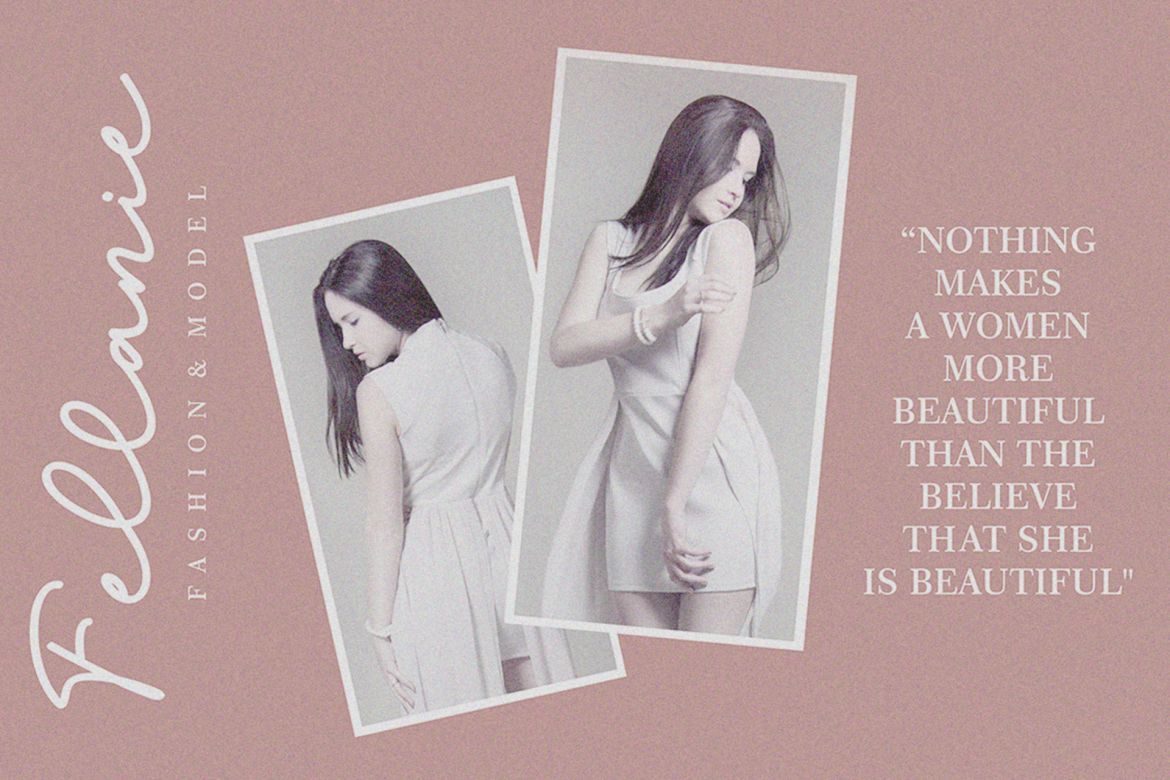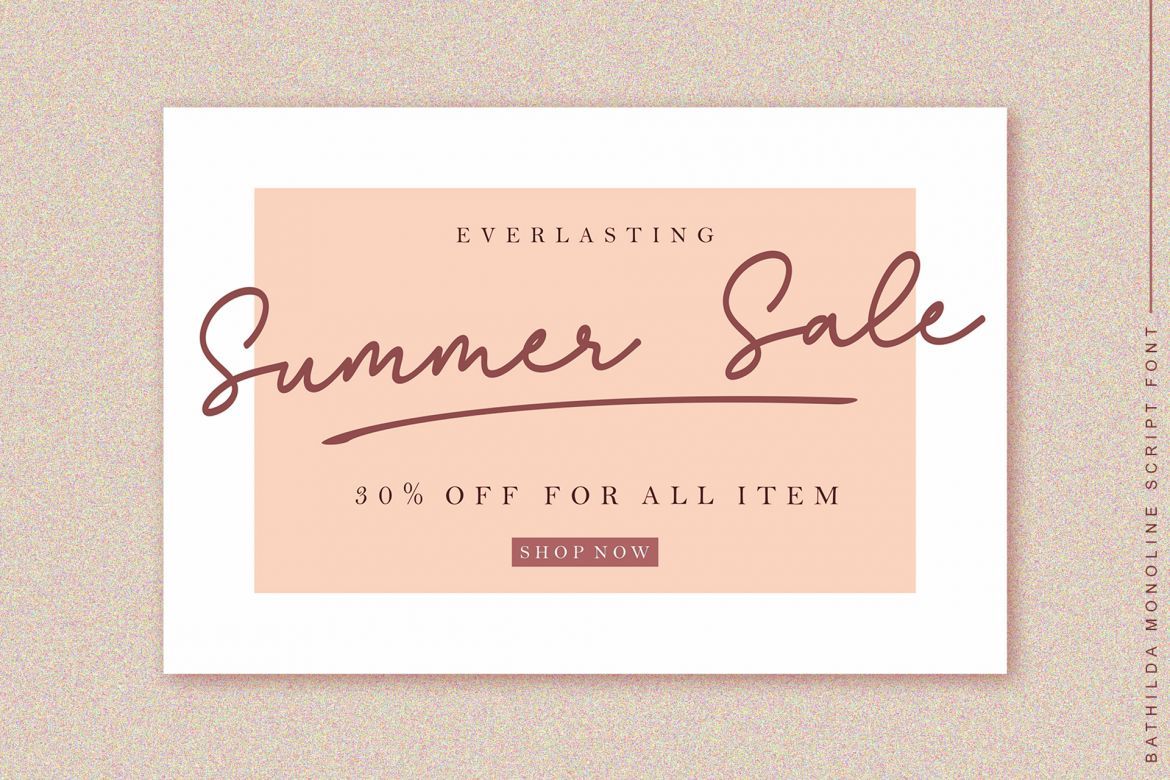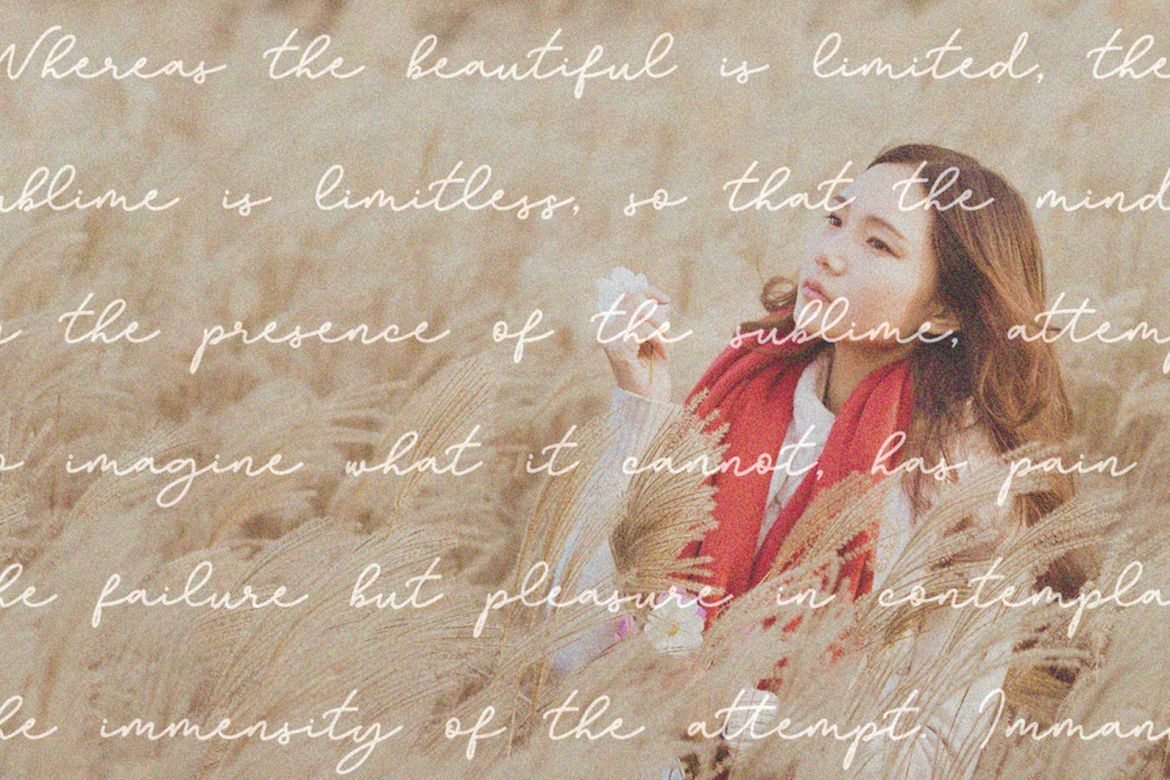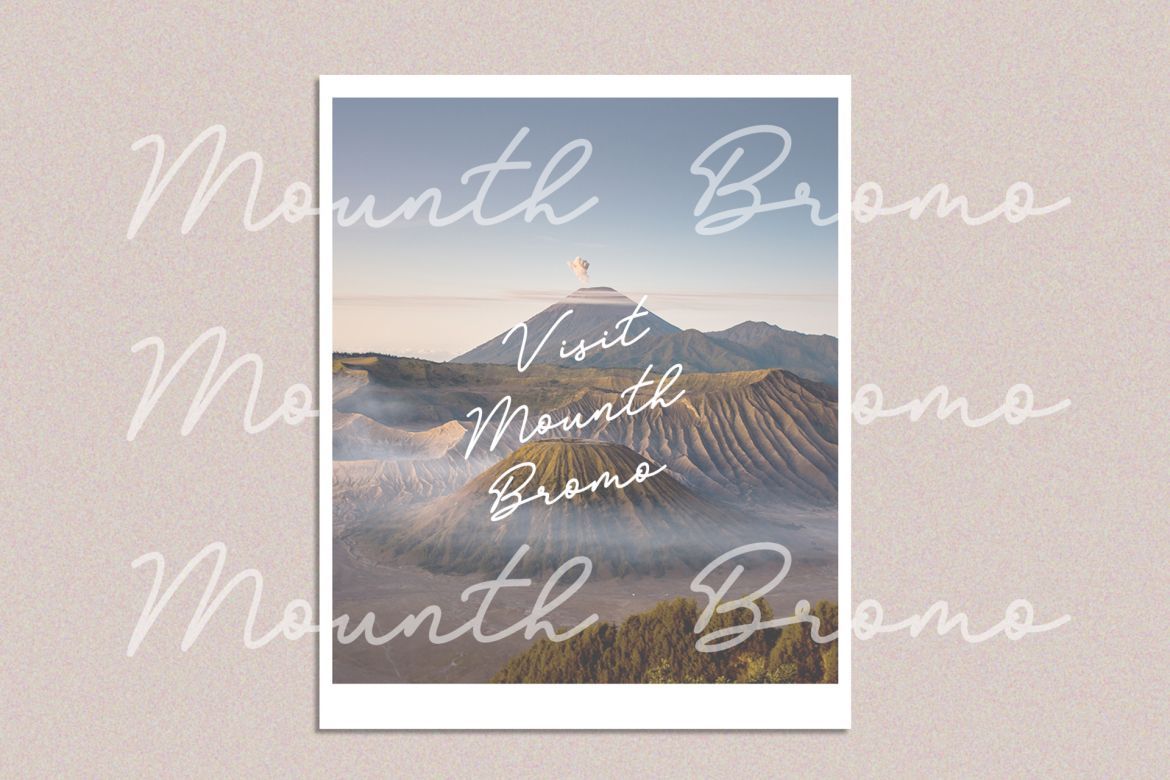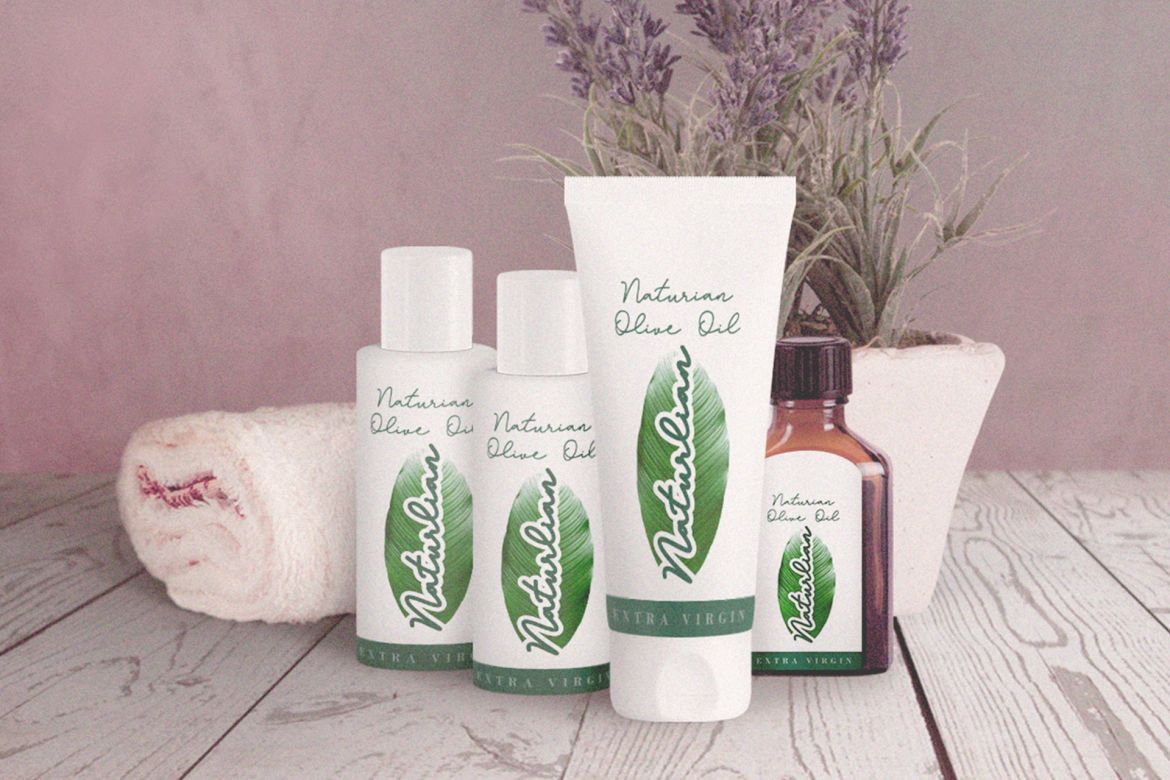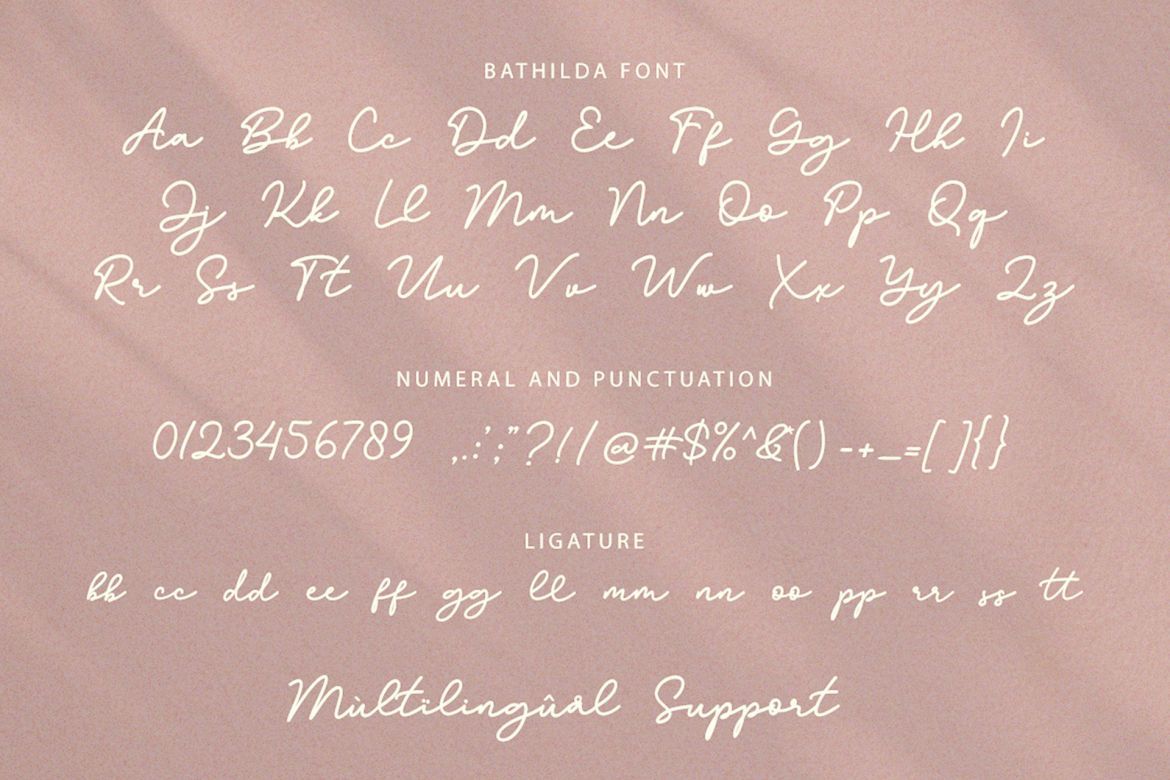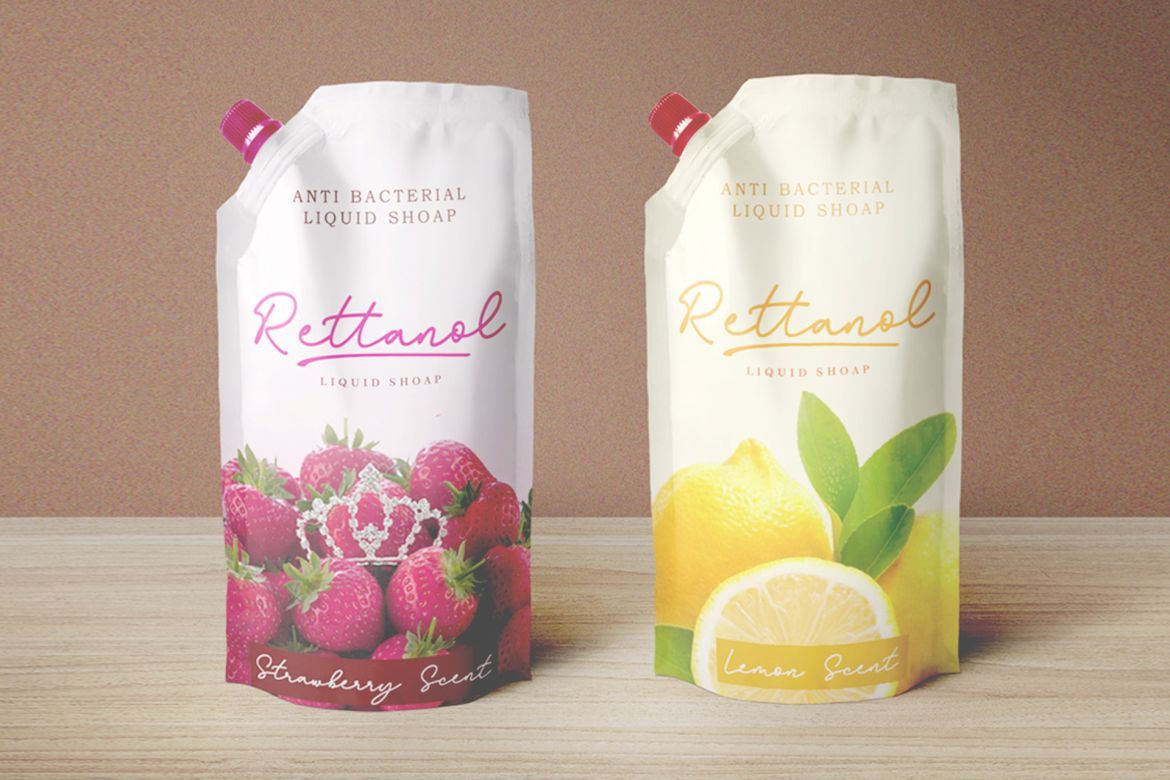
Bathilda Monoline Font
Bathilda is a monoline script font with an elegant style. It has good readability and will add a personal feel to any crafts project!
• each font has stylish handwritten style